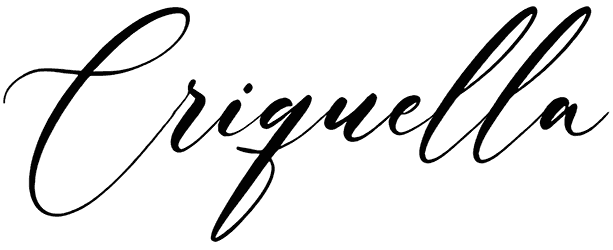
Criquella Font
As a safe choice, choosing a chic calligraphy font will be a perfect decision to leave a lasting impression on your potential audience. Criquella font is going to give an elegant and stunning visual to the words of a modern or classic design. There is no offer for numbers and punctuation marks, but still, the letters of this signature font can adorn your luxury business card for a fashion designer.